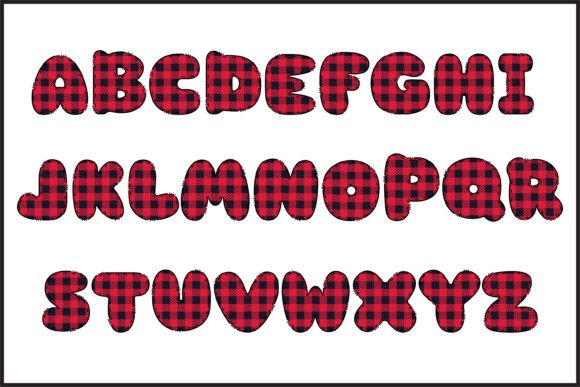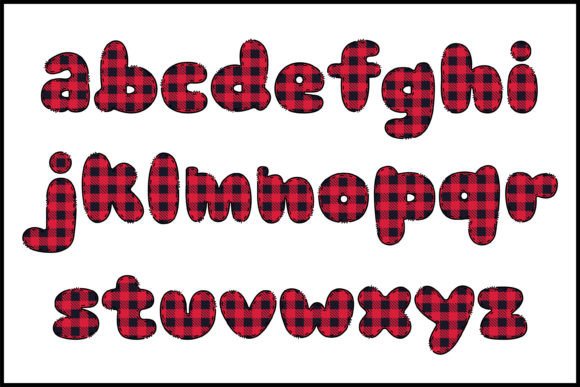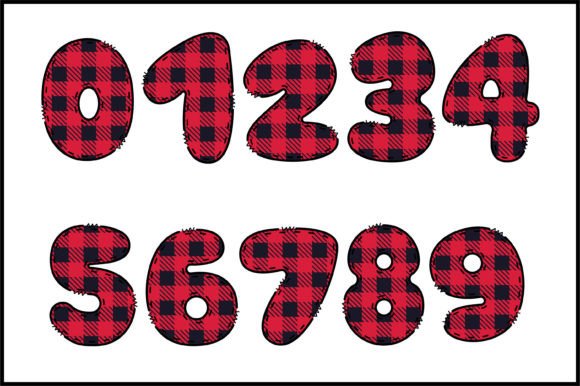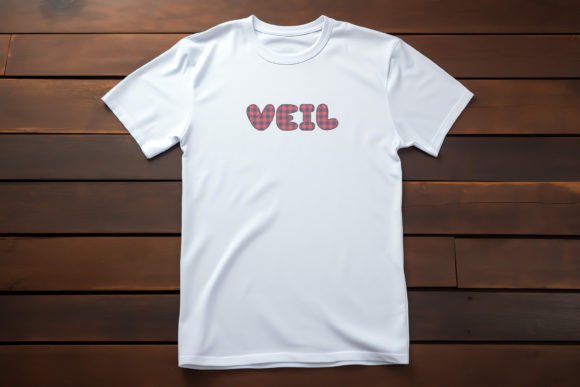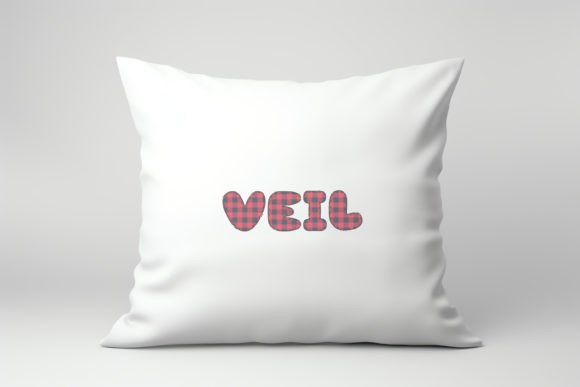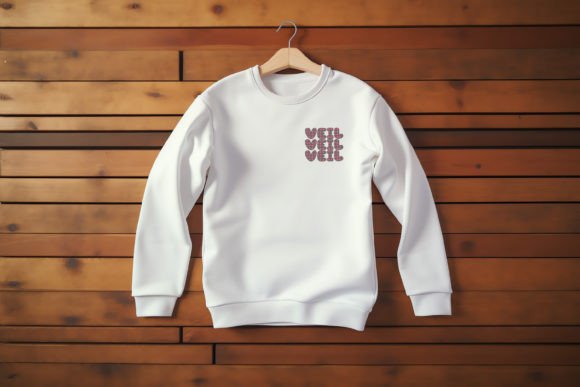
Unlocking the Magic of Whimsical Design
Do you ever find yourself stuck in a creative rut, yearning for that perfect font to bring your design to life? I know I do! As I sat surrounded by scraps of paper, paint, and glue, trying to come up with the perfect invitation for my friend’s birthday party, I stumbled upon a font that would change everything.
Meet the Buffalo Font, a delightful collection of fonts designed to add a playful touch to your designs. With its whimsical feel and colorful charm, it’s no wonder this font is a favorite among designers creating children’s books, posters, invitations, and greeting cards. What makes the Buffalo Font truly valuable is its versatility – the black version is compatible with popular cutting machines like Cricut, while the color version can be used in a range of design programs, including PhotoShop and Illustrator.
Buffalo Font Key Features
- Font Family: Buffalo Font is a sans-serif typeface designed for use in digital media.
- Font Size: The font comes in multiple weights, ranging from Thin (100) to Black (900), allowing for flexibility in design.
- Unique Characteristics: Features a distinctive, rounded edge design with a geometric feel, making it suitable for use in modern and tech-savvy branding.
- Language Support: Supports a wide range of languages, including Latin, Cyrillic, and Greek scripts, making it a versatile choice for global branding.
Overall, I was excited to dive into the Buffalo Font. As a designer, I appreciate unique and bold typography. Here’s my honest review.
- Unique and bold style that’s perfect for making statements
- Highly customizable with various font weights and sizes
- Includes a range of languages and glyphs for global use
- Compatible with most design software and platforms
- Some characters may appear slightly uneven or inconsistent in certain font sizes
- Not ideal for body text due to its bold and eye-catching nature
- May not be suitable for projects requiring a more subtle or neutral tone
While Buffalo Font has its limitations, it’s a great choice for projects that require a bold and attention-grabbing typography. Its unique style and high customizability make it perfect for creating striking headlines, logos, or titles. Just be mindful of its usage in body text or projects with a more subtle tone.
Use Buffalo Font for titles, headings, and emphasis. It’s a bold, attention-grabbing font that works well for creating visual interest. Experiment with different font sizes and colors to create a unique look.
Use Buffalo Font for:
– Titles and headings
– Emphasis and highlighting
– Creating visual interest
Alternatives to Buffalo Font
Great Vibes is a modern, cursive script font that works well for titles and headings. It has a similar playful feel to Buffalo Font but is more refined and elegant. Great Vibes is ideal for branding, packaging, and advertisements.
Comparison to Buffalo Font: Great Vibes is more polished and sophisticated than Buffalo Font, making it suitable for more formal and professional projects.
Pacifico is a beautiful, handwritten font that conveys a sense of relaxation and calmness. It’s perfect for creating a beachy or tropical vibe in your designs. Pacifico is similar to Buffalo Font in its casual, approachable feel but has a more refined and elegant appearance.
Comparison to Buffalo Font: Pacifico is more laid-back and casual than Buffalo Font, making it ideal for projects that require a relaxed and beachy atmosphere.
Alex Brush is a elegant, handwritten font that works well for titles, headings, and body text. It has a similar whimsical feel to Buffalo Font but is more sophisticated and refined. Alex Brush is ideal for branding, packaging, and editorial design.
Comparison to Buffalo Font: Alex Brush is more elegant and refined than Buffalo Font, making it suitable for projects that require a more formal and sophisticated look.
What is the recommended font size for the Buffalo Font?
The recommended font size for the Buffalo Font varies depending on the application and intended use. However, as a general guideline, we recommend using font sizes between 12 and 24 points for body text and 36 to 48 points for headings. This will ensure optimal legibility and readability.